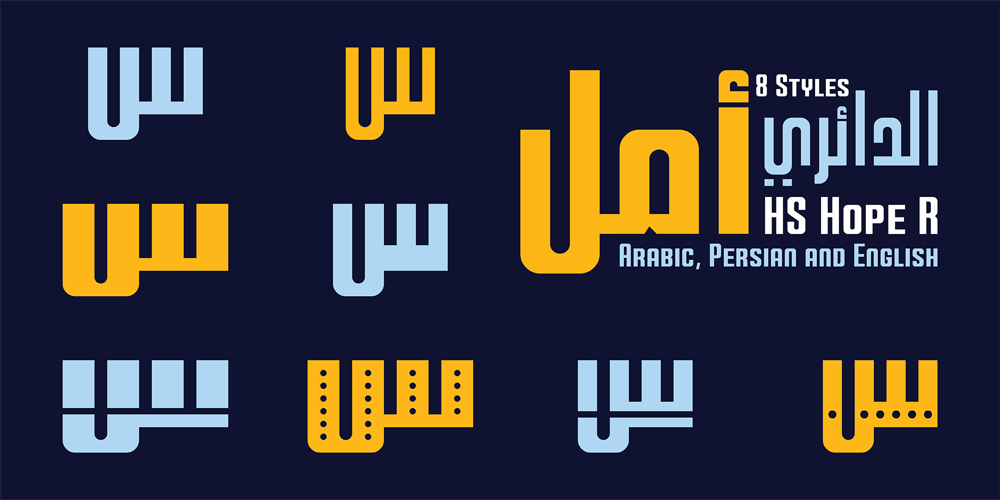
HS Hope R Font Family was designed by Hasan Abu Afash and published by Hiba Studio. HS Hope R contains 8 styles and family package options. HS Hope R is a geometric typeface that supports Arabic, Persian, and Latin scripts. It features rounded edges on some characters, giving it a softer and more approachable appearance. This typeface is ideal for headlines, book covers, and advertisements, offering a modern and clean look. HS Hope R includes eight styles: Light, Regular, Bold, Bold Dots, Bold Stencil, Title, Title Dots, and Title Stencil. Each style provides unique geometric and decorative elements, making it versatile for various design needs.